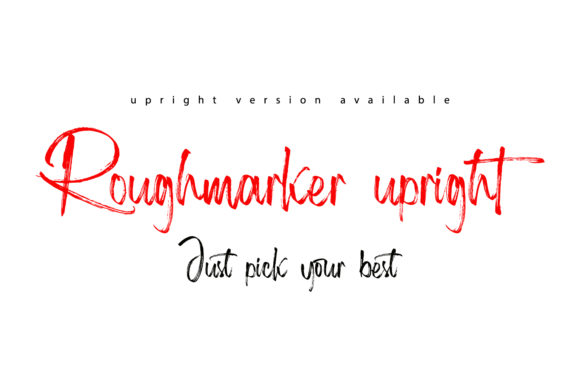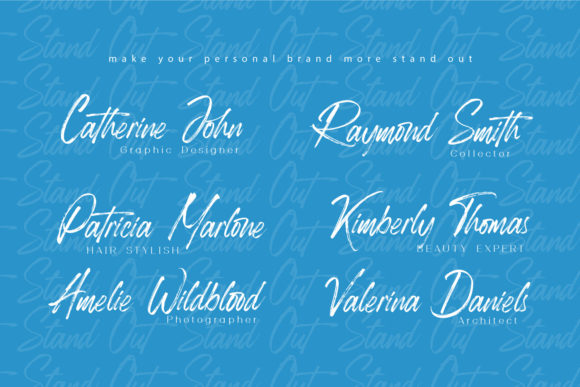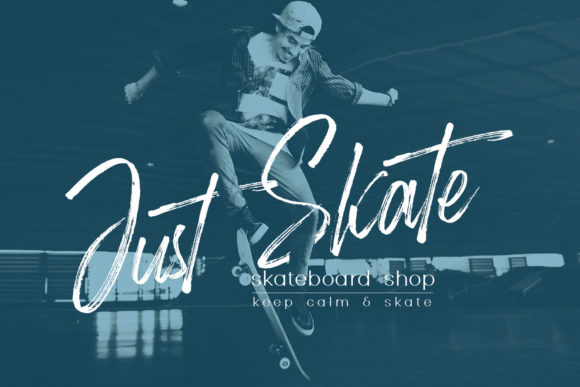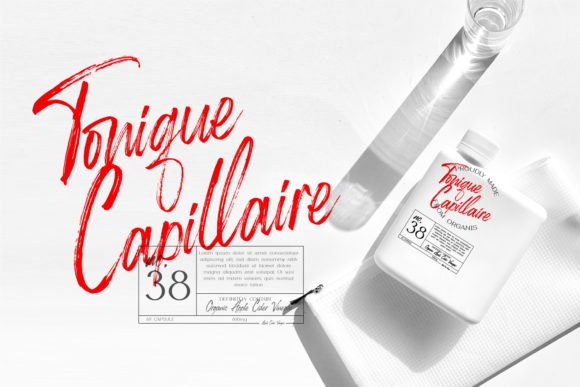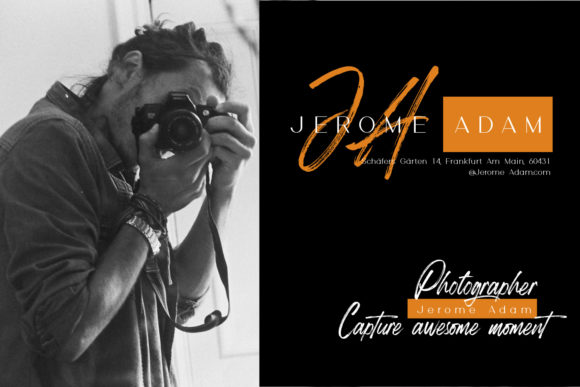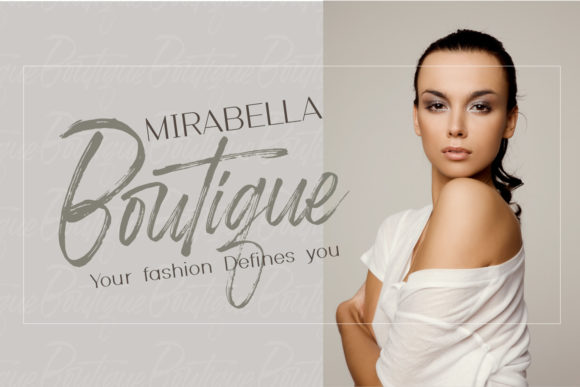
Introduction to Roughmarker Font Font
Fonts play a crucial role in design, and the Roughmarker Font font is a typeface that brings both character and versatility to any project. Whether you’re working on a branding project, a website, or a print design, the Roughmarker Font font offers a unique style that can elevate your work.
Roughmarker is a modern, fun script font, created by using a brush pen.
A little bit quirky, this font is the perfect fit for all of your logos, branding, social media, and crafty DIY projects .
Key Features of Roughmarker Font Font
Why Choose Roughmarker Font Font?
The Roughmarker Font font is more than just a typeface – it’s a design tool that helps you communicate your message with style and clarity. Its unique character set and versatile design make it suitable for a wide range of applications, from elegant invitations to bold headlines.
With its carefully crafted letterforms and balanced proportions, the Roughmarker Font font ensures readability and visual appeal across all mediums.
What makes Roughmarker Font font special?
The Roughmarker Font font stands out with its unique design, exceptional readability, and versatility across various design applications.